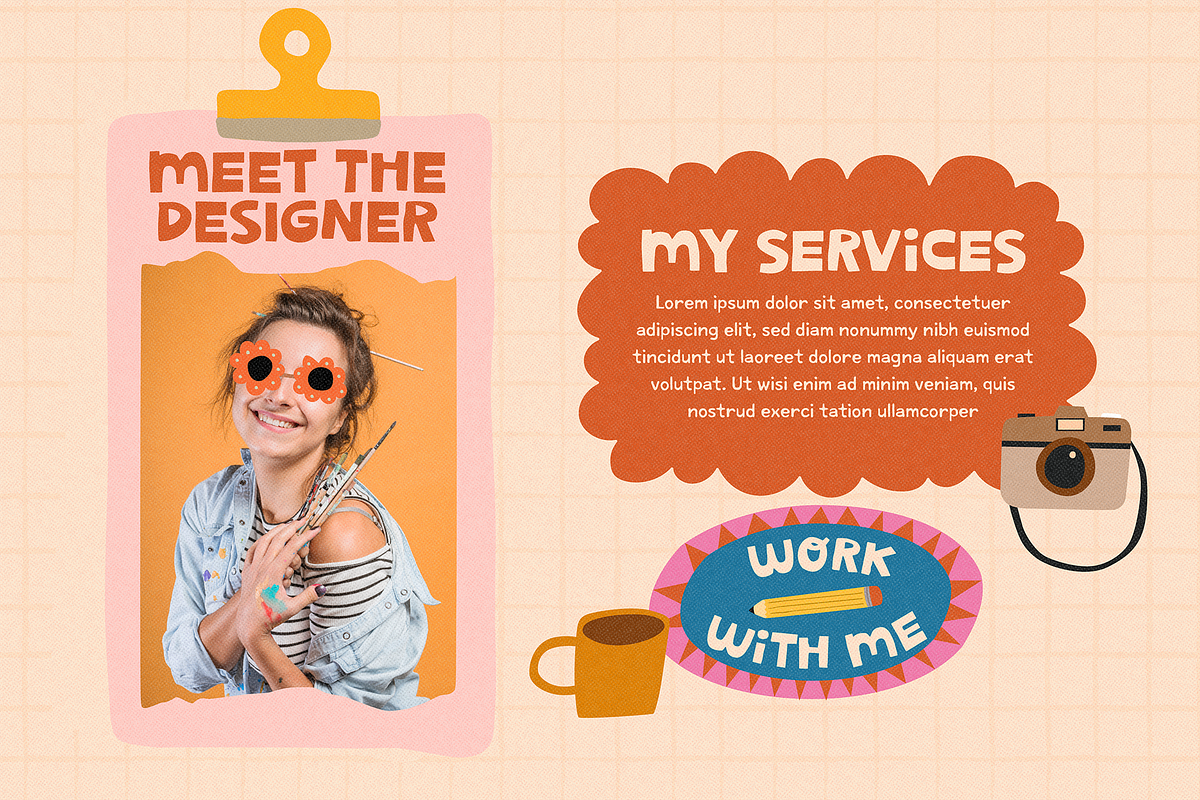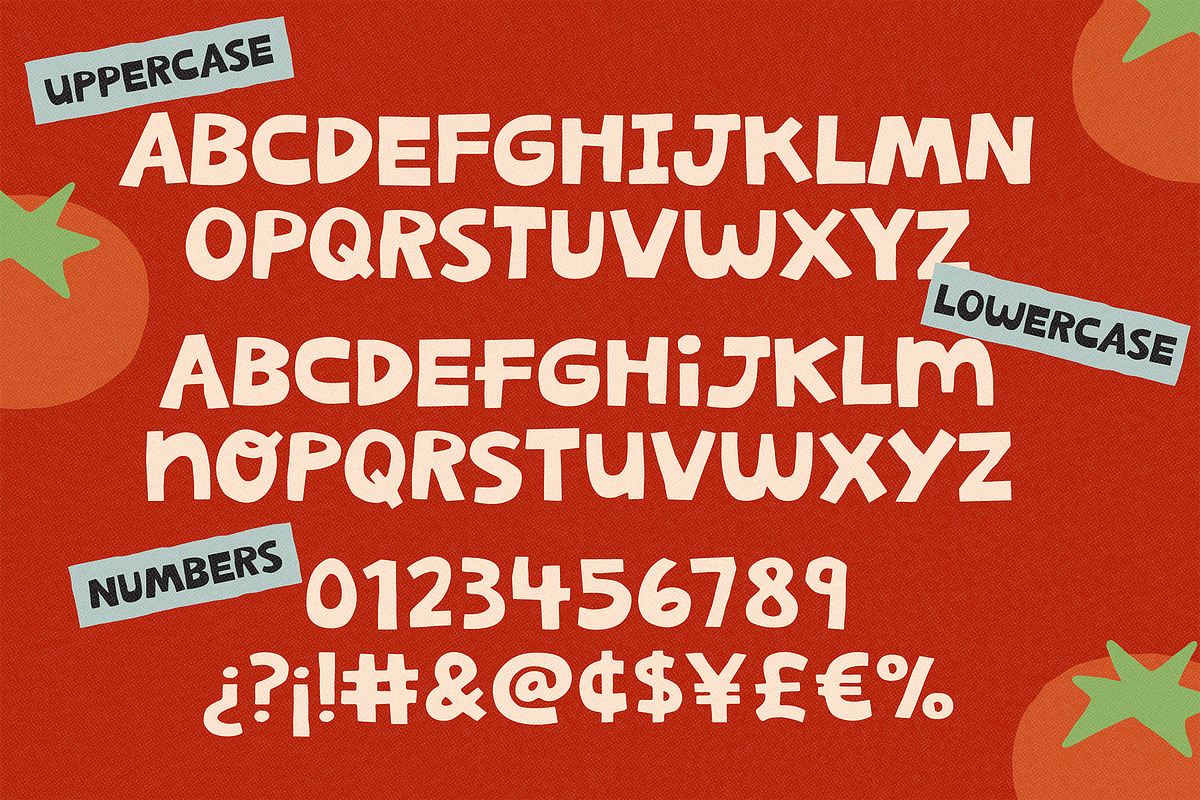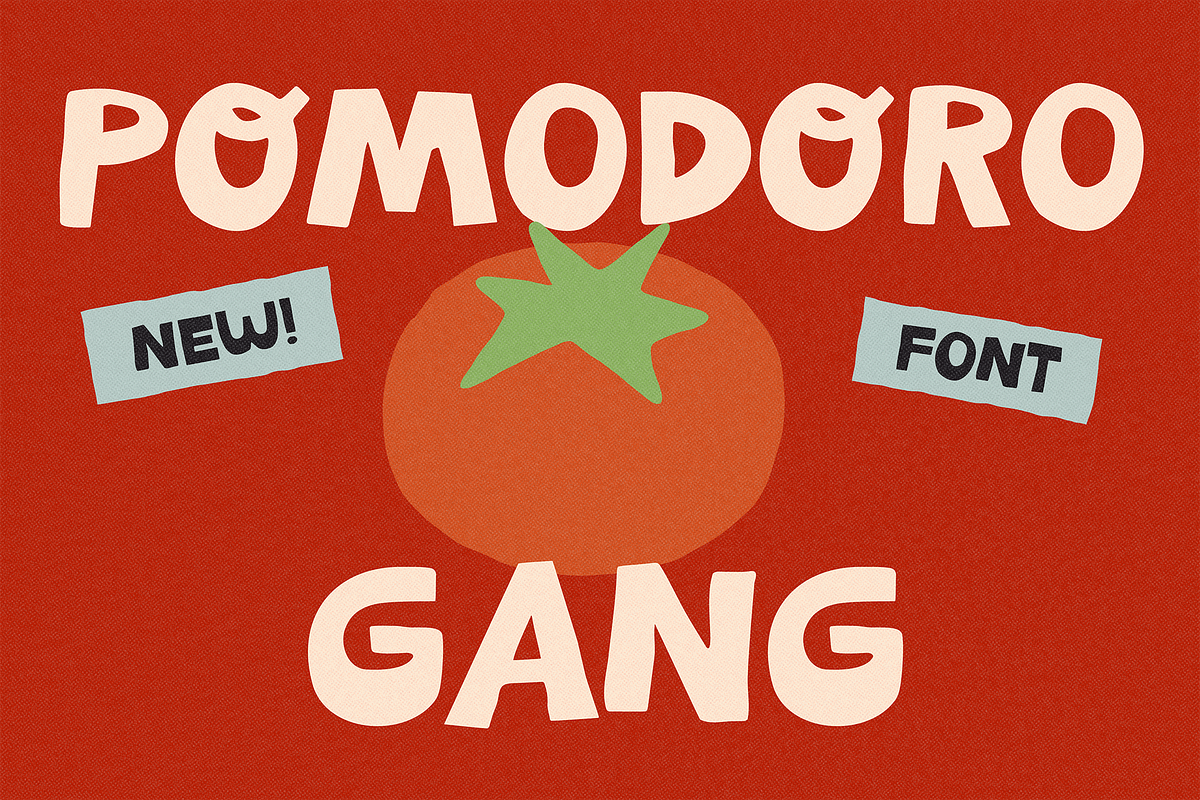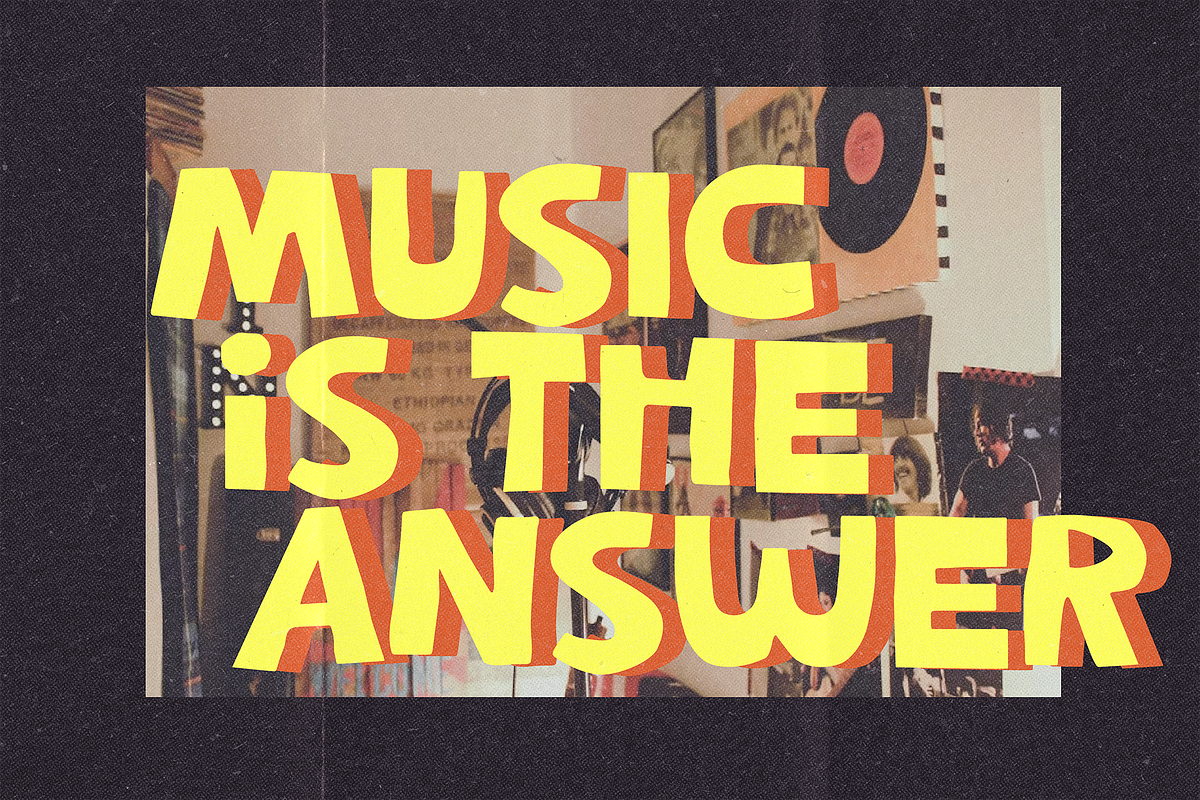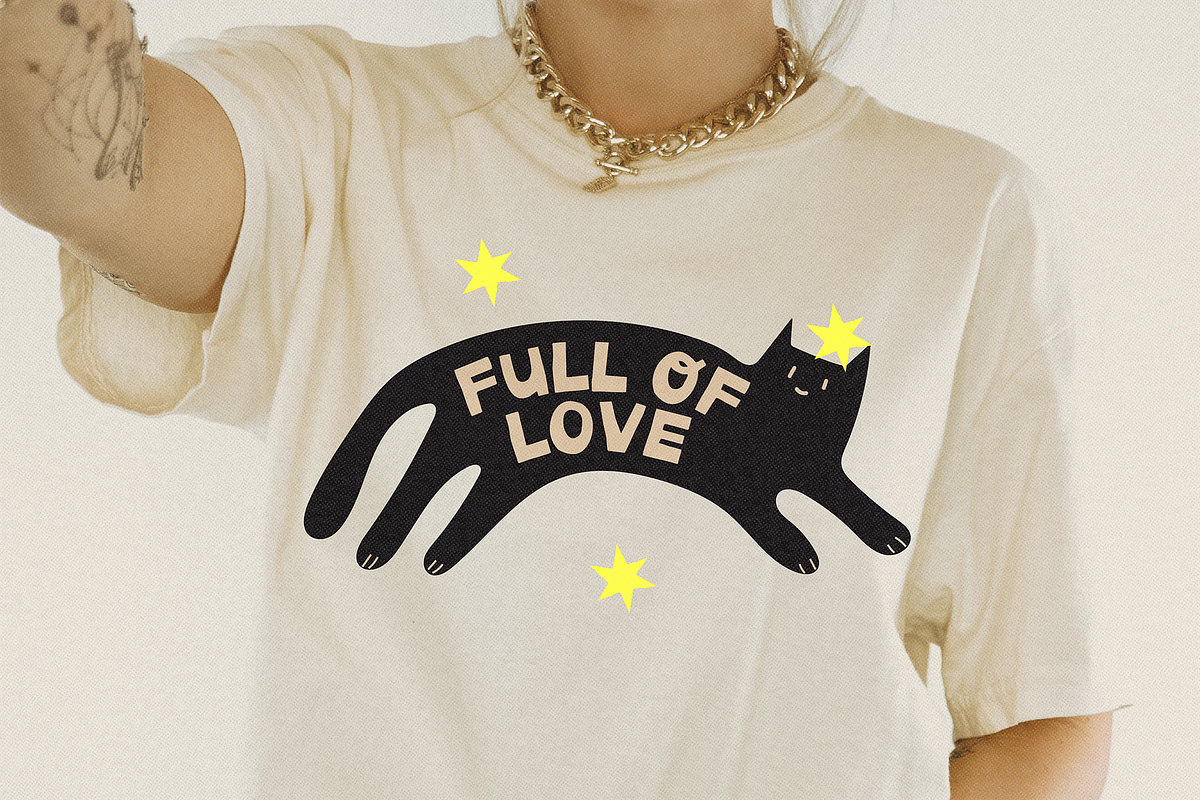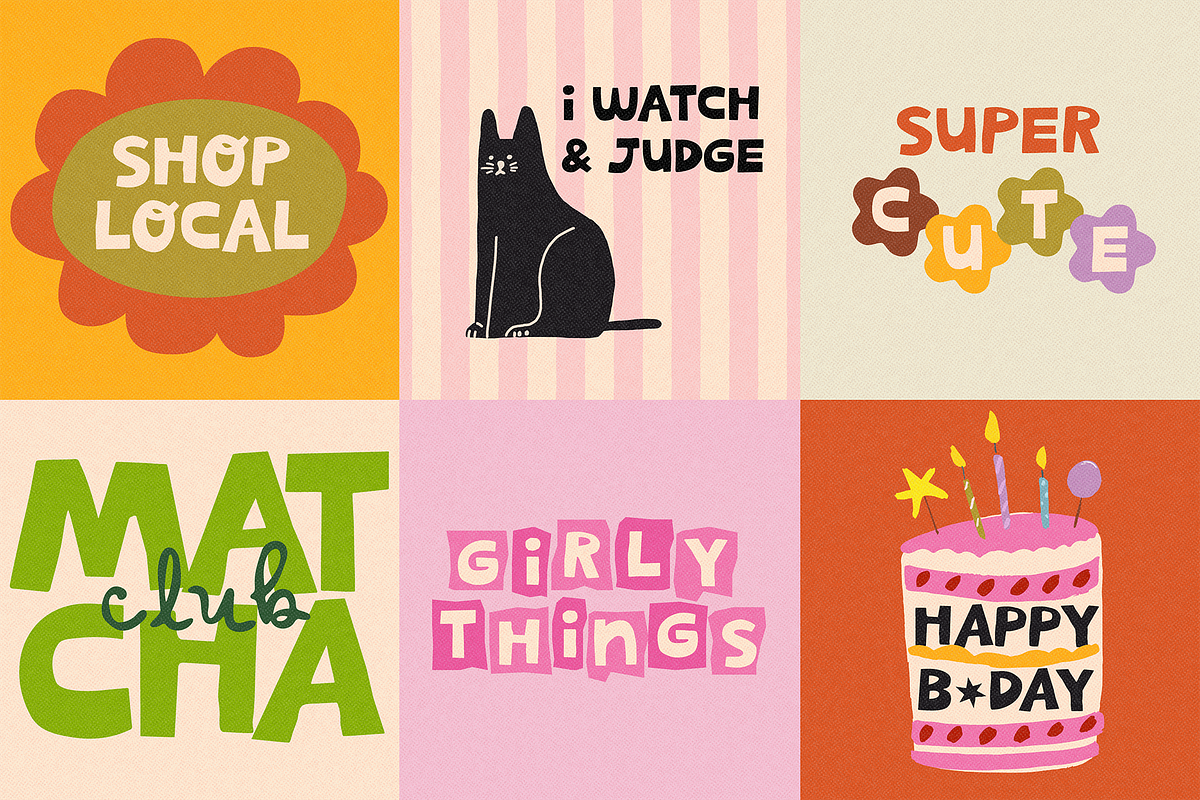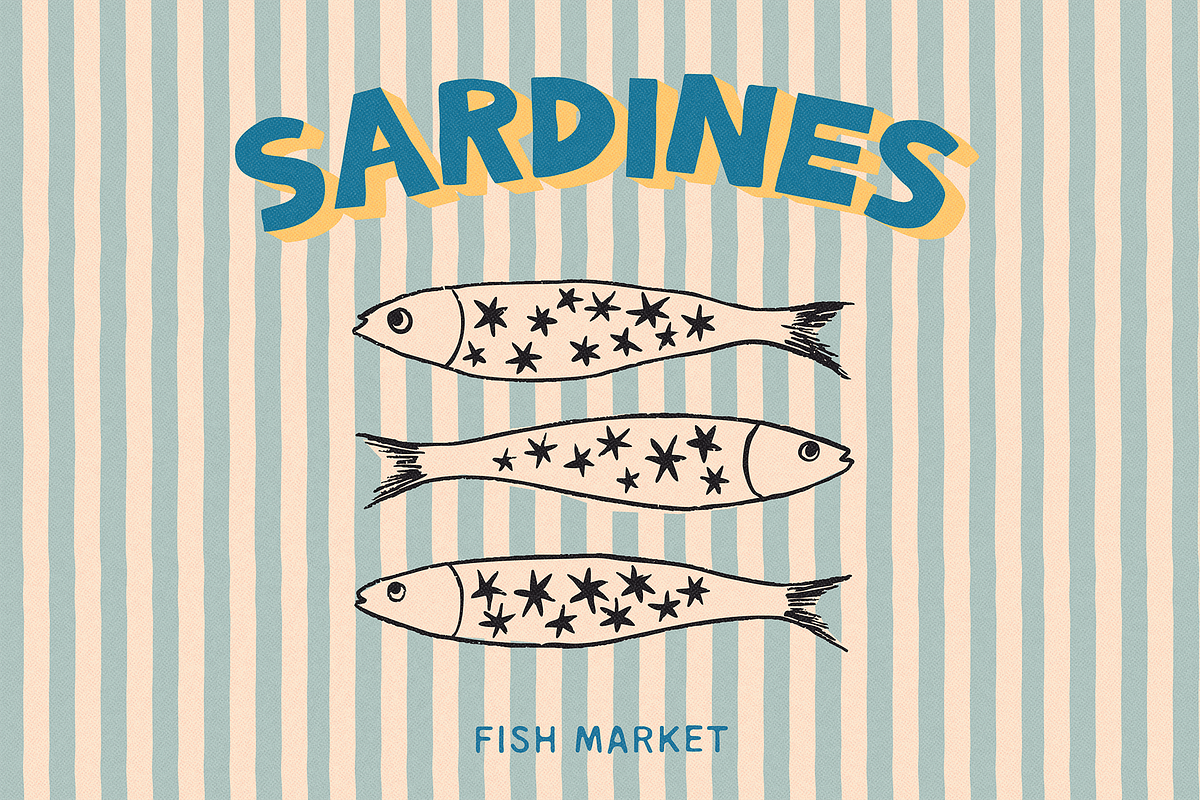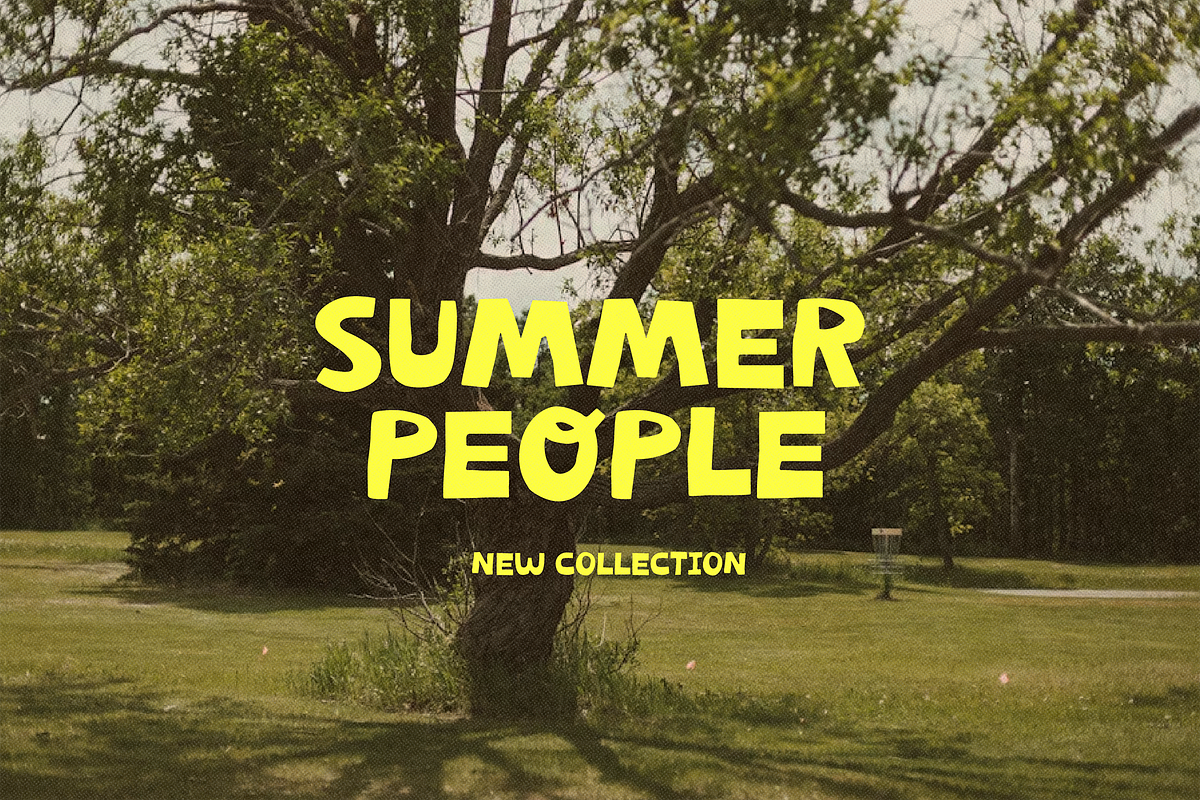
POMODORO GANG | CHUNKY FONT
POMODORO GANG is a bold and quirky display font full of personality! With its hand-crafted, irregular shapes and chunky style, this playful typeface adds a fun and carefree vibe to any design.
Perfect for bold titles, kids’ book covers, fun stickers, posters, merch, t-shirt designs, and anything that needs a punch of creativity. Its irregular and chunky shapes give it a DIY feel — ideal for projects that want to stand out without being too polished.
Also a great choice for child-friendly designs, back-to-school projects, and anything needing a dose of charm and cheer.
✷ POMODORO GANG also includes 1 alternate characters (I) and 1 fun character (star) to give your designs a custom and special touch!
- Left curly bracket { – alternate I
- Right curly bracket } – Star